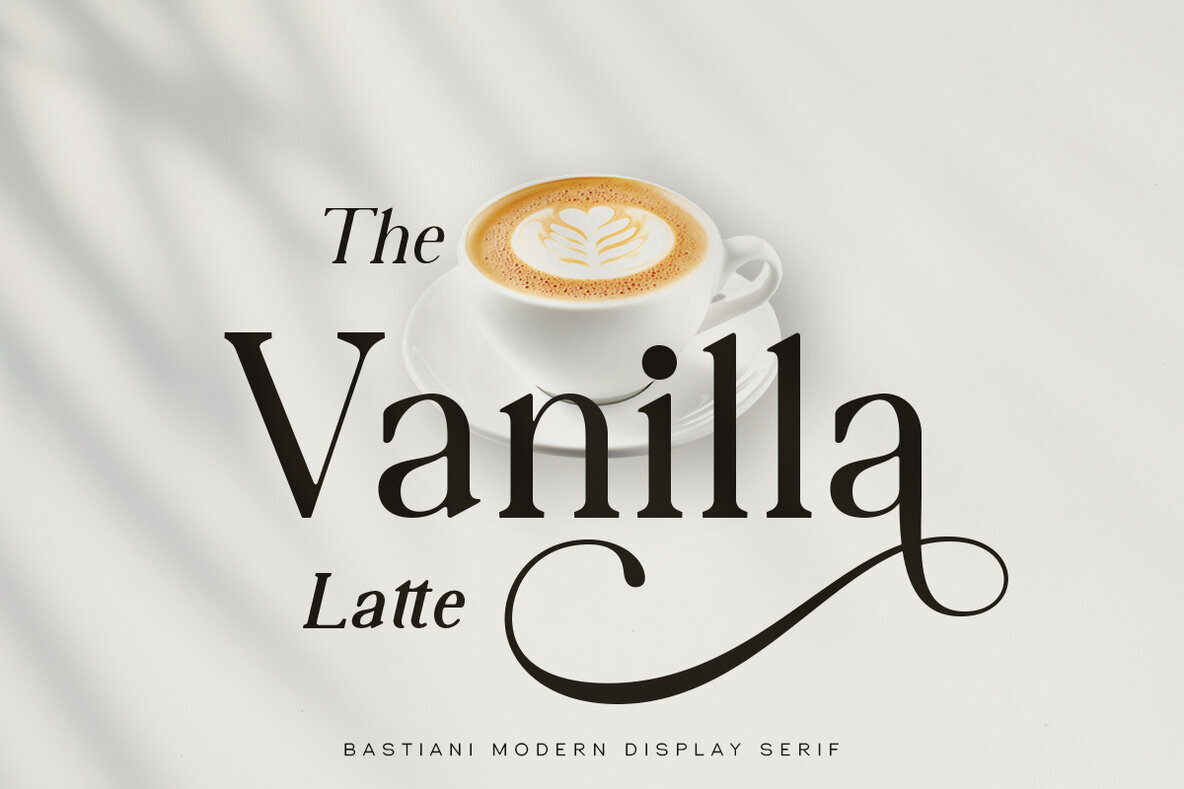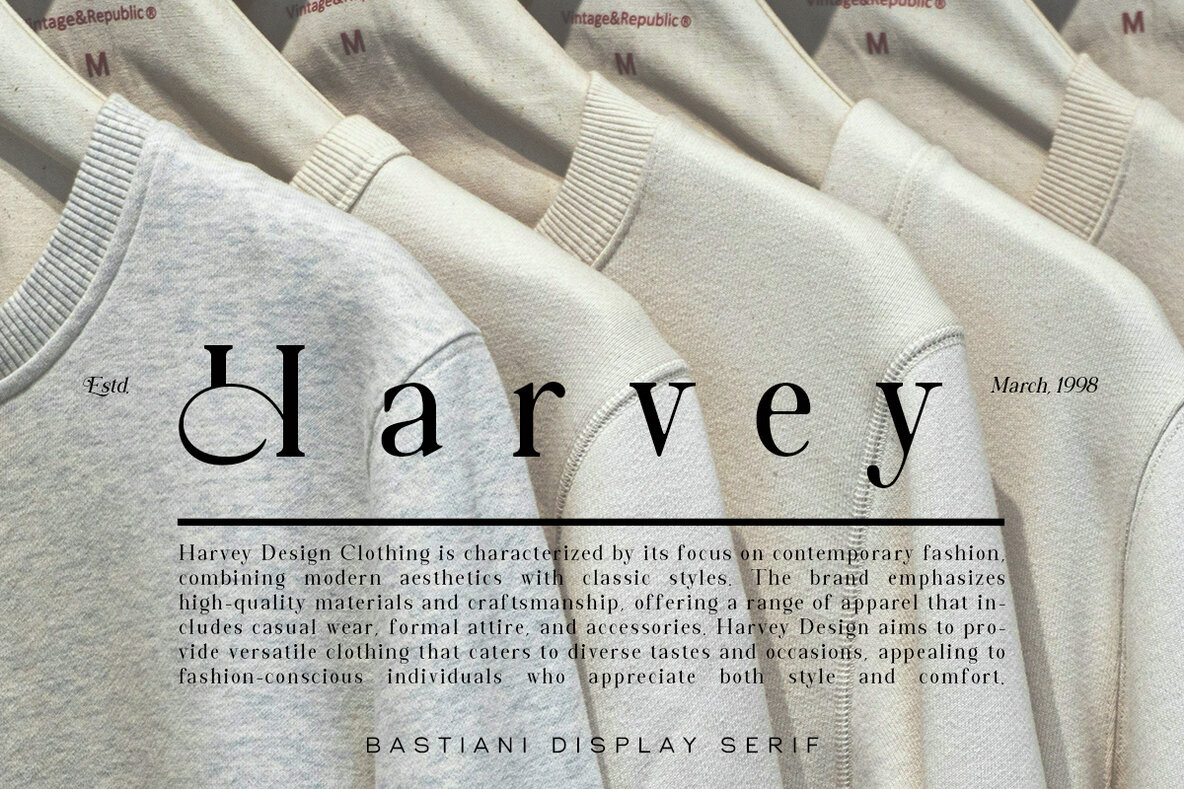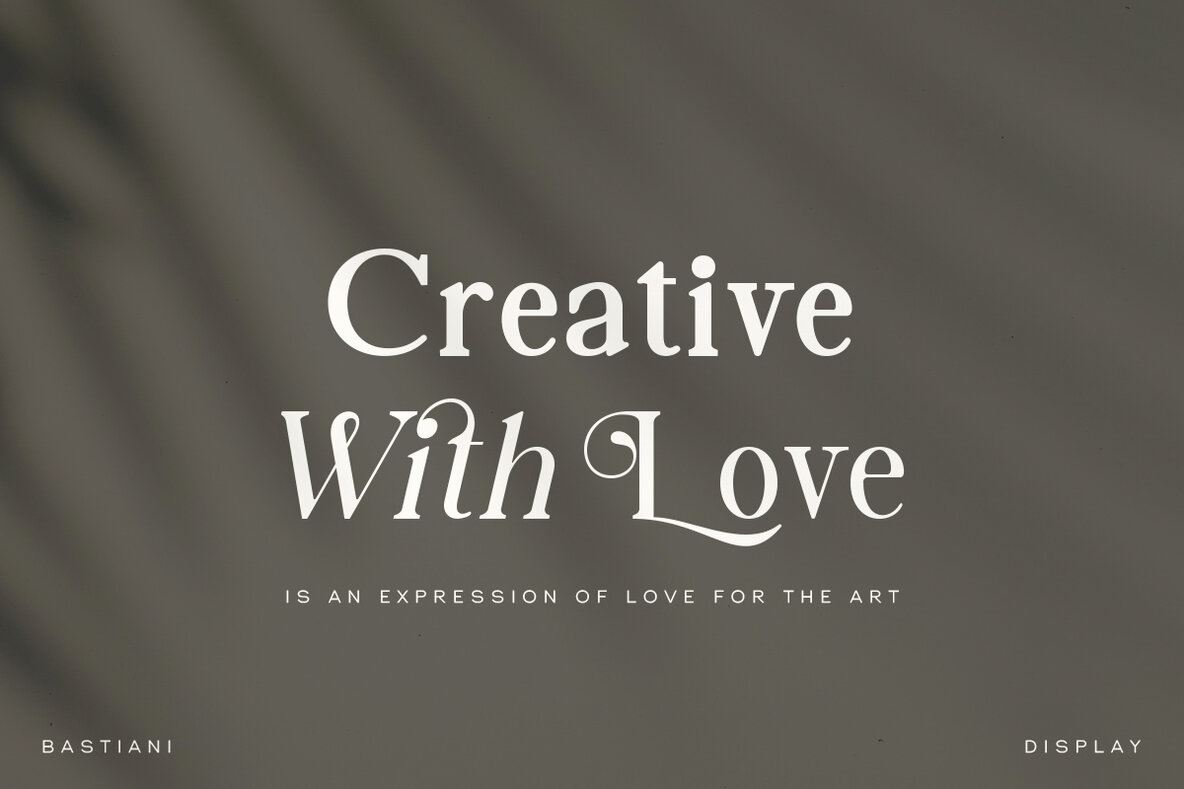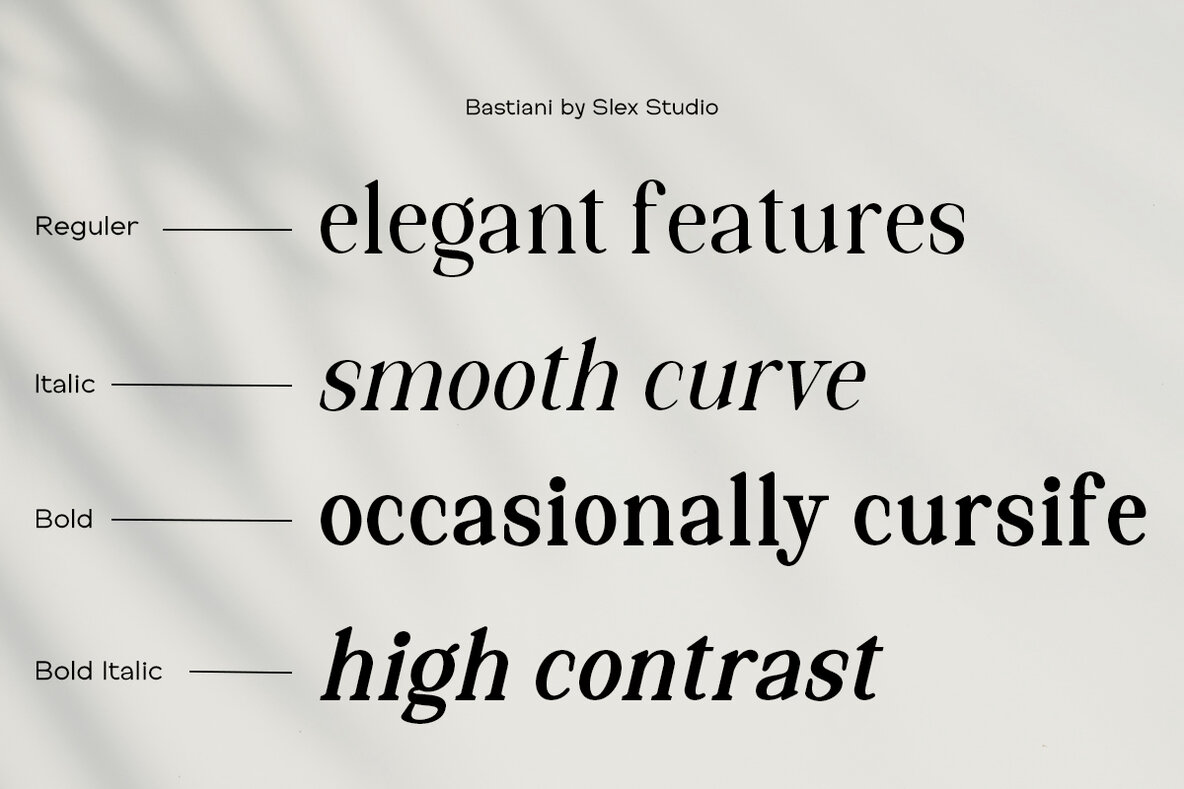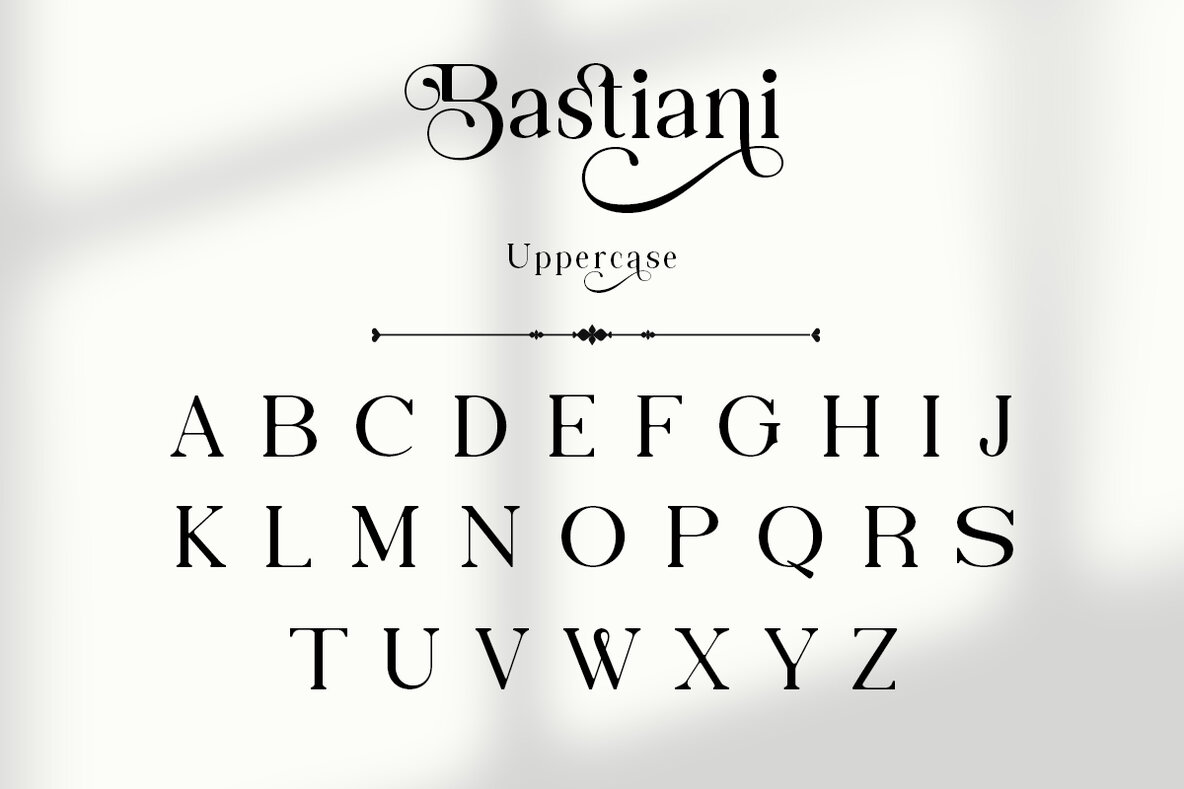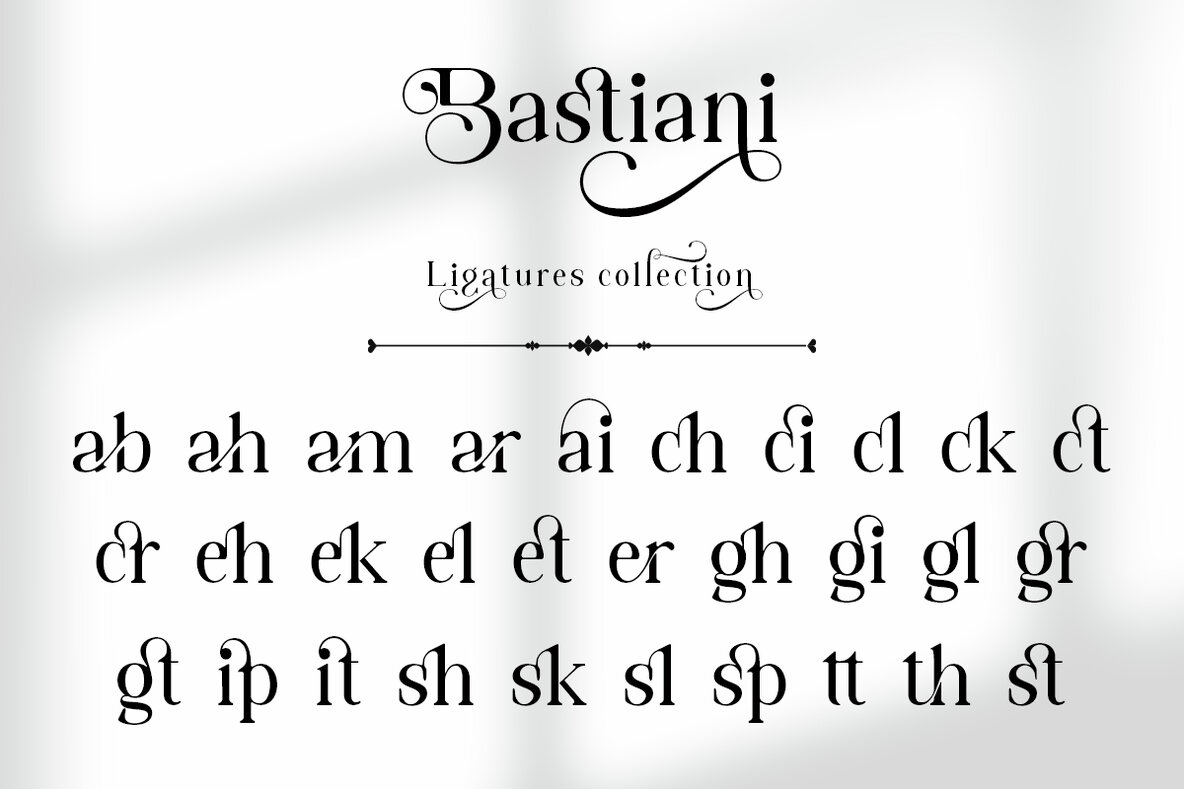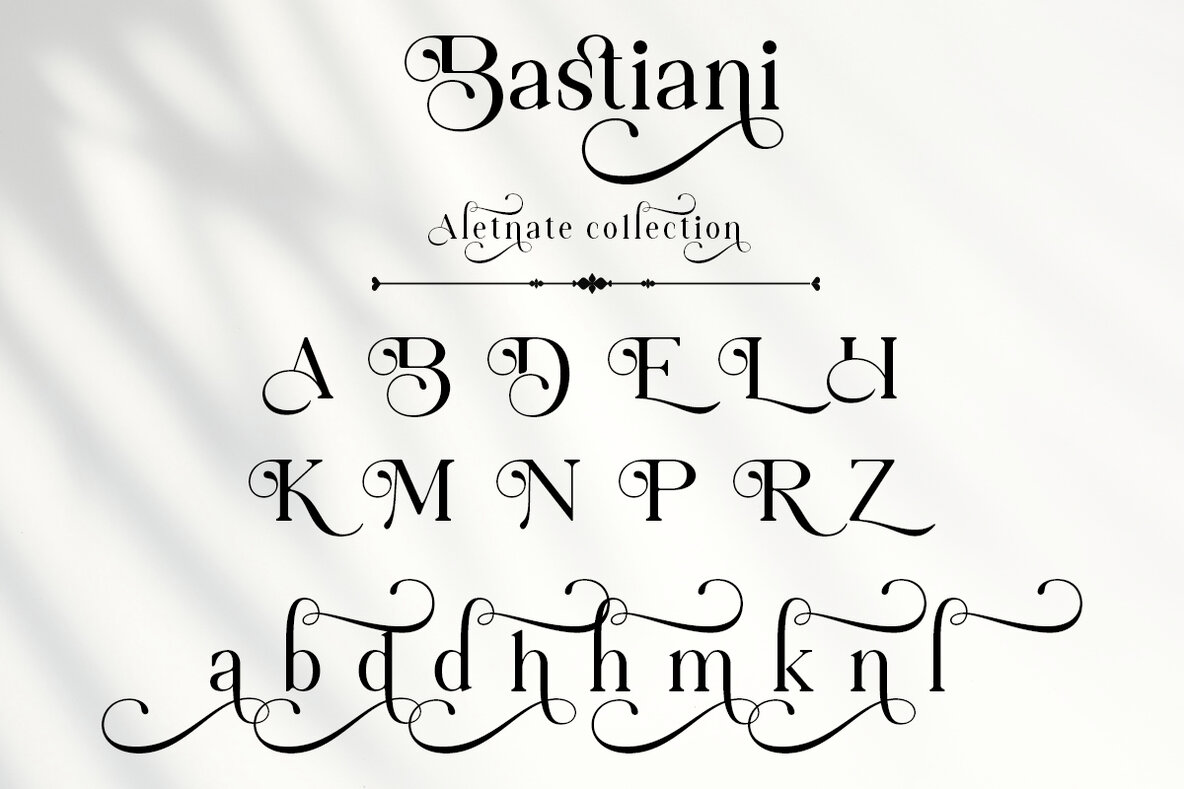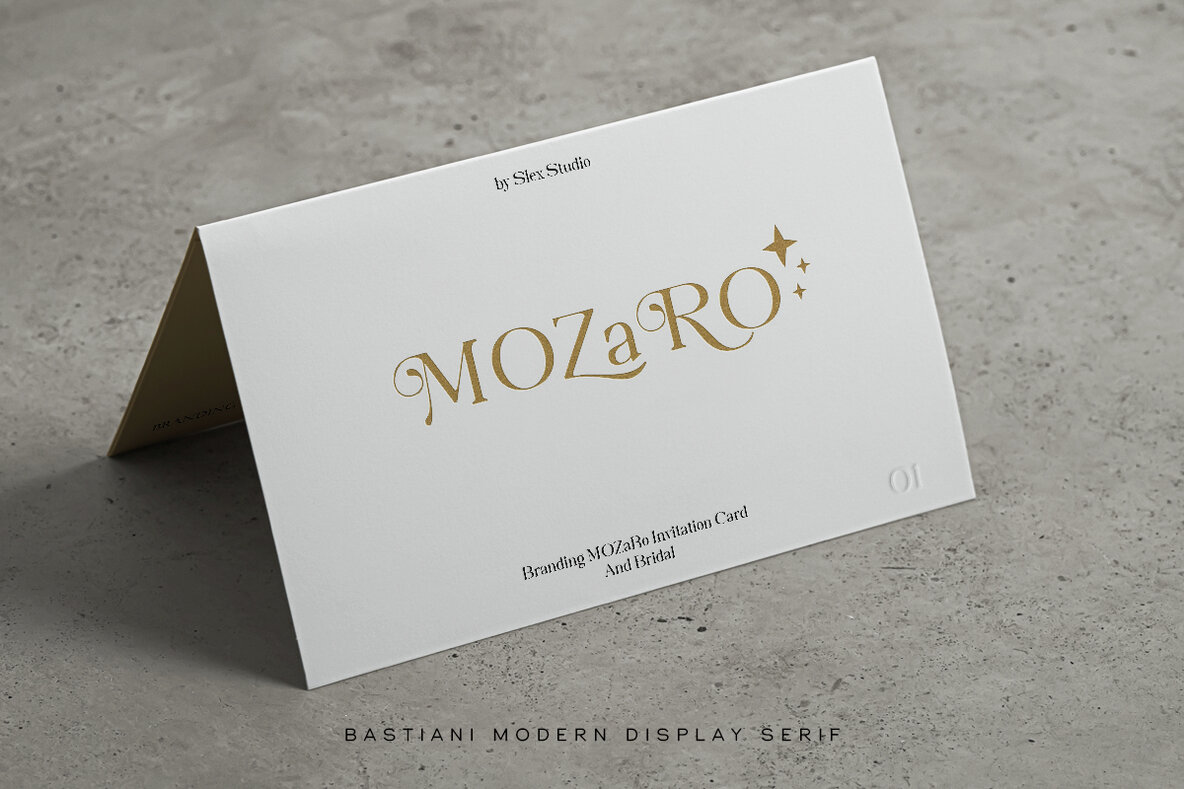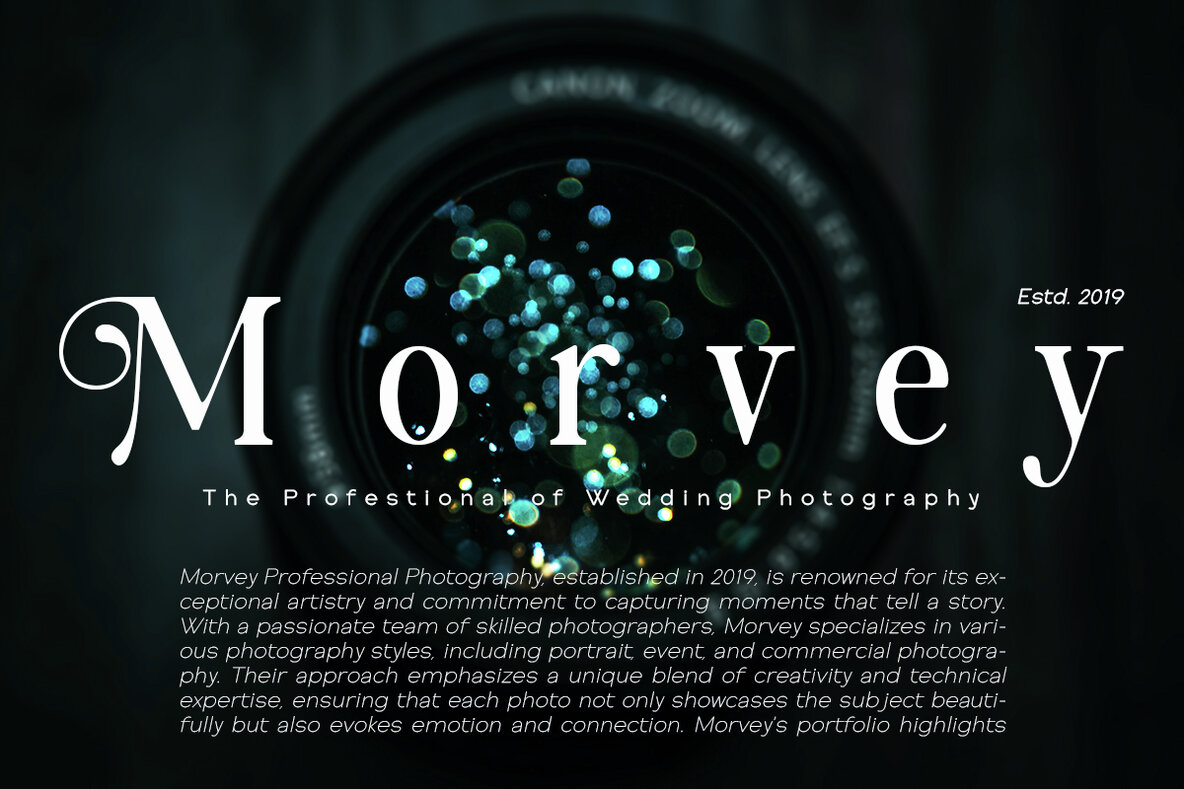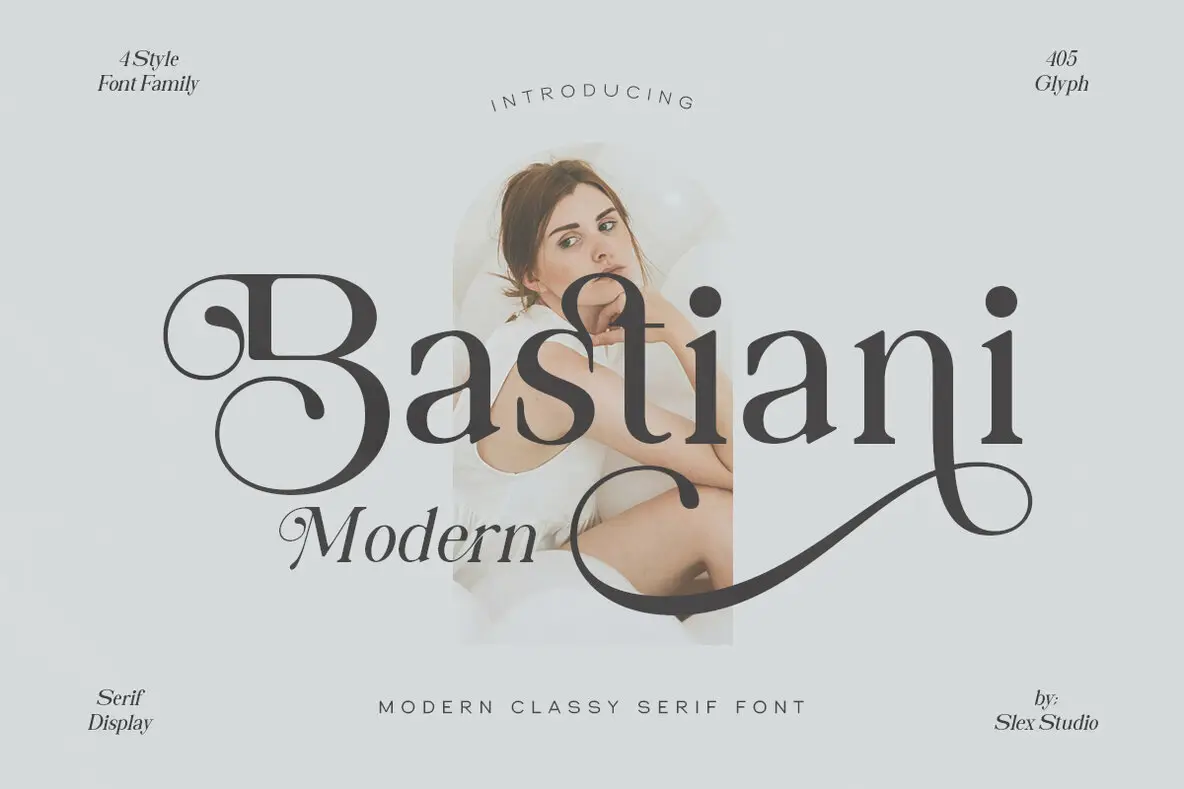
Bastiani Modern Font
Bastiani Modern emerges as a unique display serif font that captivates with its smooth, rounded serifs, offering a warm and inviting ambiance. Diverging from traditional sharp or angular serif designs, this font embraces gentle curves that speak to a modern yet elegant sensibility. The blend of rounded serifs and geometric letterforms achieves a balance that is both contemporary and classically influenced. Characterized by its smooth curves and subtle contrasts in stroke weights, Bastiani Modern ensures readability while maintaining a commanding presence at larger sizes. Its versatility shines through in a variety of applications—be it editorial titles, brand identities, or luxury goods advertising. The font’s soft-edged serifs impart a sophisticated charm, perfect for projects desiring a graceful yet approachable typeface. Bastiani Modern stands out in any setting requiring both legibility and style. Its modernity and grace make it a superb choice for upscale branding and striking headlines, offering a distinctive look infused with classic allure.Bastiani Modern: A Contemporary Display Serif